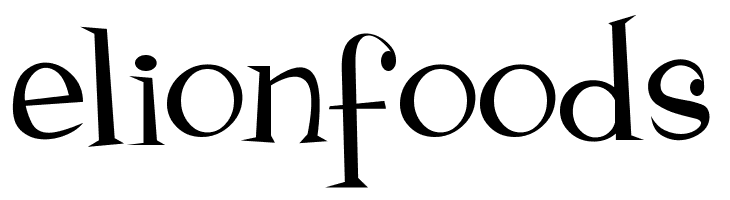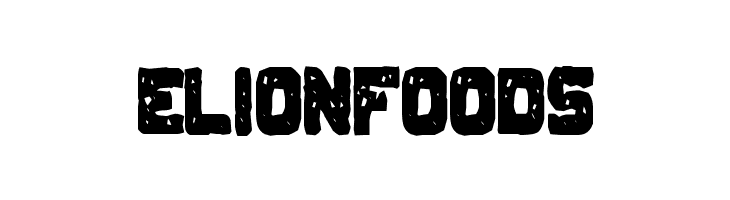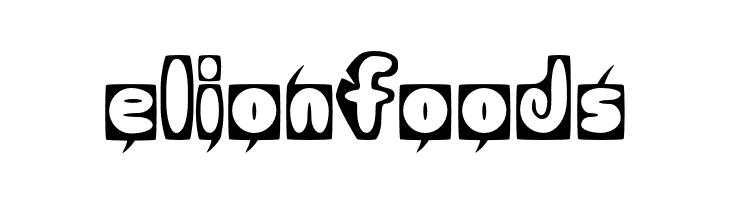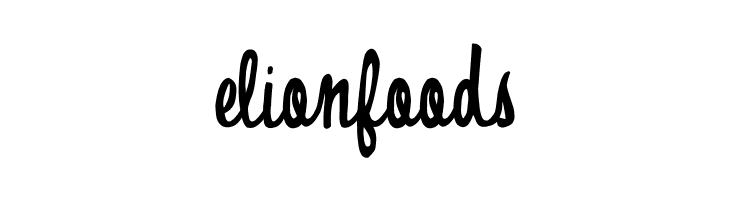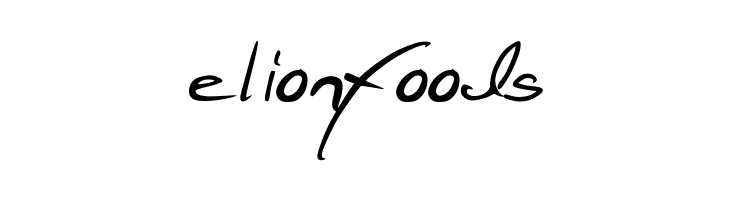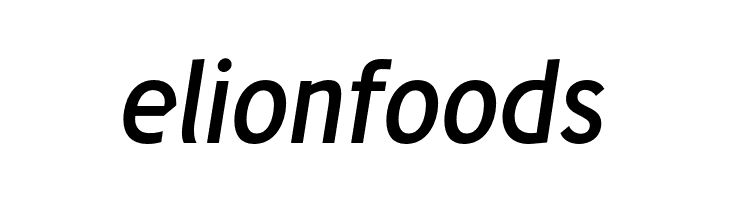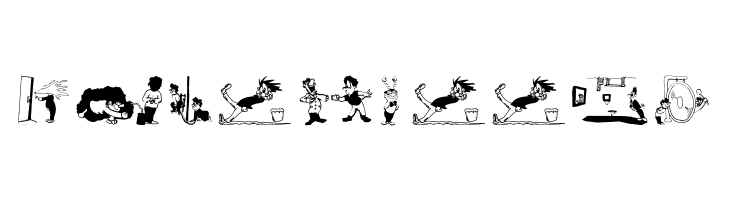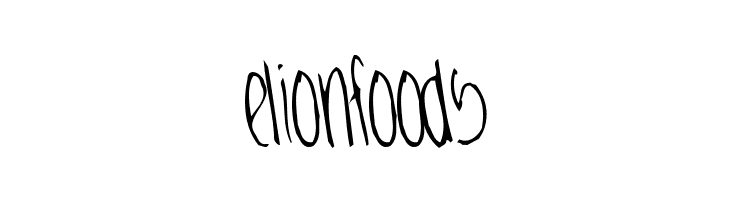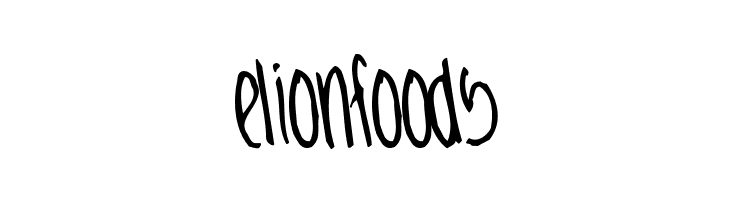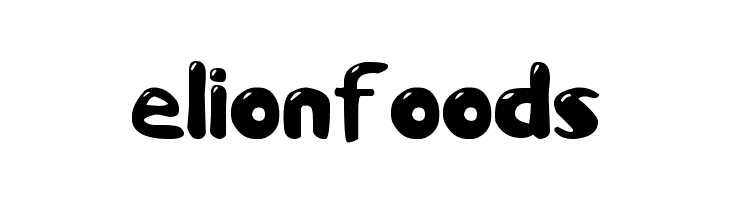
• Jellyka jellyfish
A whimsical, cursive font with a calligraphic style and dynamic strokes.
• Jenna
( Fonts by Daniel Gauthier )
A playful, handwritten font with tall, narrow letters and bold strokes.
• JennaBold
( Fonts by Daniel Gauthier )
A bold, handwritten font with a playful and casual style.
• Jetmix
( Fonts by Matthieu Chavigny - free.matthieu.com )
A playful, bold font with rounded, bubbly characters and a hand-drawn feel.
• Johnny Homicide
( Fonts by www.vicfieger.com )
A bold, distressed font with a rugged, edgy appearance.
• Johnyokonysm
( Fonts by Ruben Prol - www.ipanemagrafica.com )
A whimsical and playful serif font with dynamic strokes and unique characters.
• Jokers
Cartoonish, prank-themed illustrative font with each character as a unique comic drawing.
• Jonei Black
A bold, playful font with a cartoon-like, blocky design.
• Jonny Quest Classic
( Fonts by Steve Ferrera )
A dynamic and playful script font with fluid, cursive letterforms.
• Josef Pro Italic